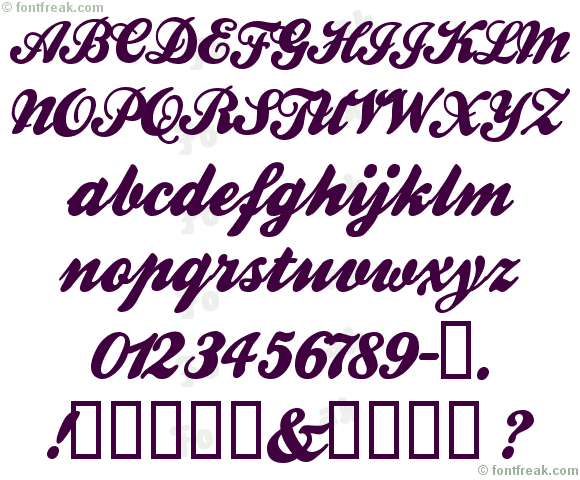
Ballpark Weiner
The Ballpark Weiner font by Mickey Rossi is a delightful display typeface that combines a playful spirit with a vintage charm. Its design is reminiscent of classic American sports signage, which makes it a perfect choice for projects that aim to evoke nostalgia. Characterized by its bold, rounded strokes, Ballpark Weiner features a moderate contrast in weight, giving it a lively yet balanced appearance. The letters are generously spaced, allowing for easy readability while maintaining a decorative flair. The font's curvy forms and whimsical characteristics capture attention, making it ideal for projects that require a fun and engaging aesthetic.
This font excels in a variety of use cases. It is particularly well-suited for designing vibrant restaurant menus, where it can convey a casual and inviting atmosphere. Additionally, Ballpark Weiner can enhance the visual appeal of movie posters, especially for comedies or family-friendly films, by adding a touch of lightheartedness. Wedding invitations can also benefit from this font's charming style, providing a unique twist for couples looking to express their playful personalities. Furthermore, it is an excellent choice for sports-themed events, promotional materials, or merchandise, effectively capturing the excitement associated with athletic competitions.